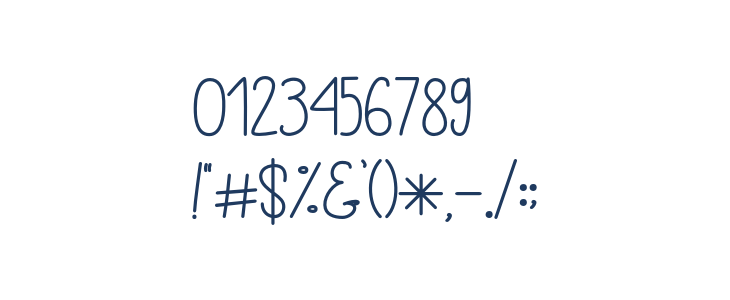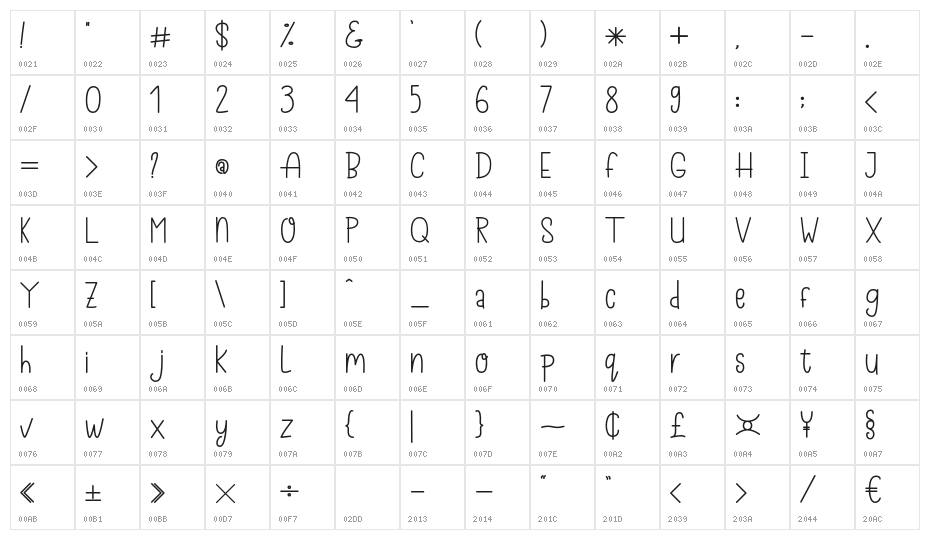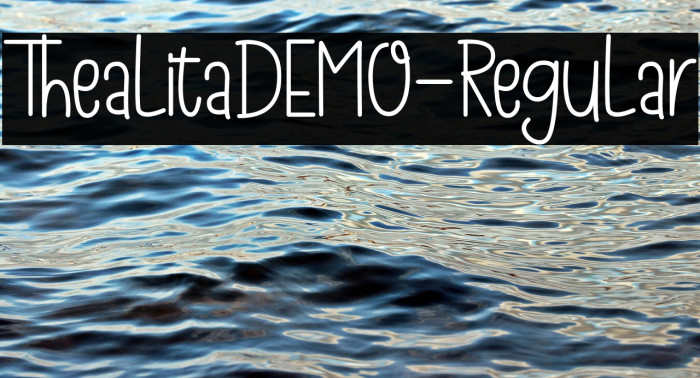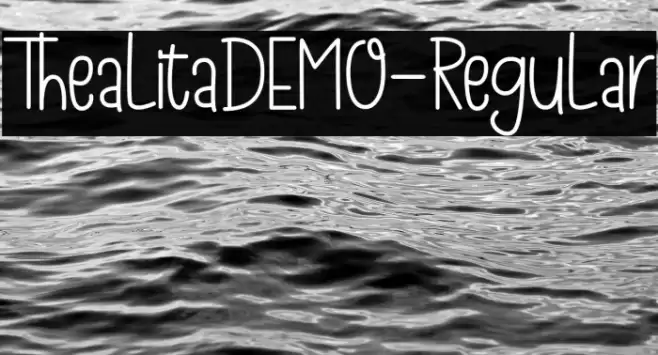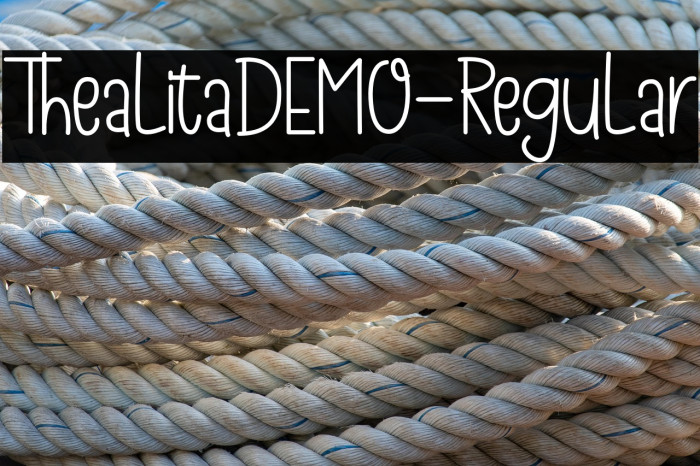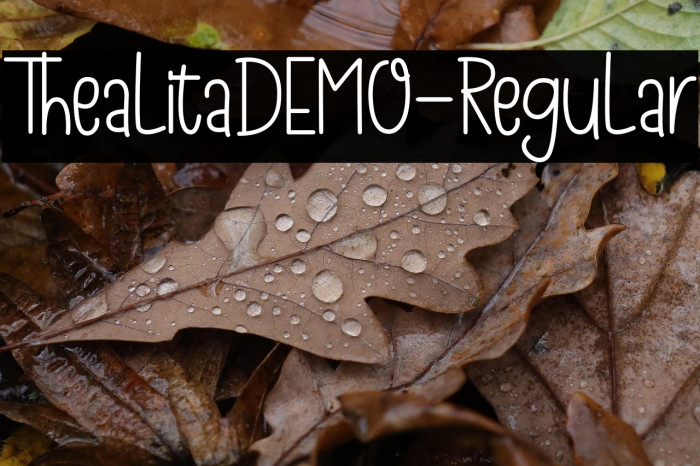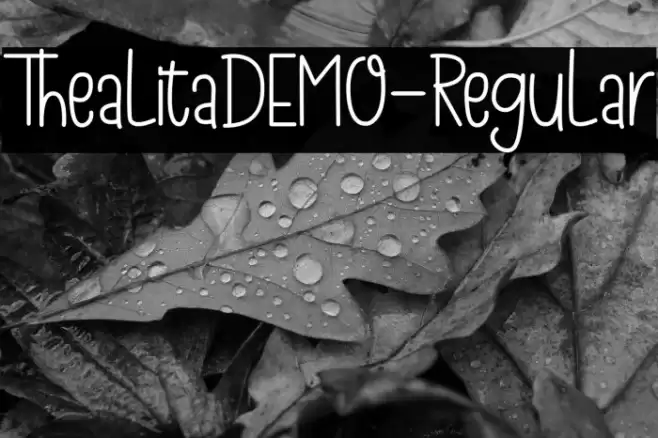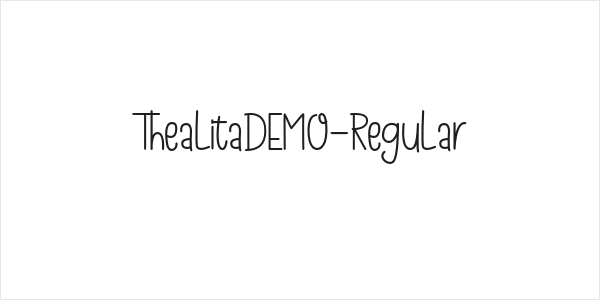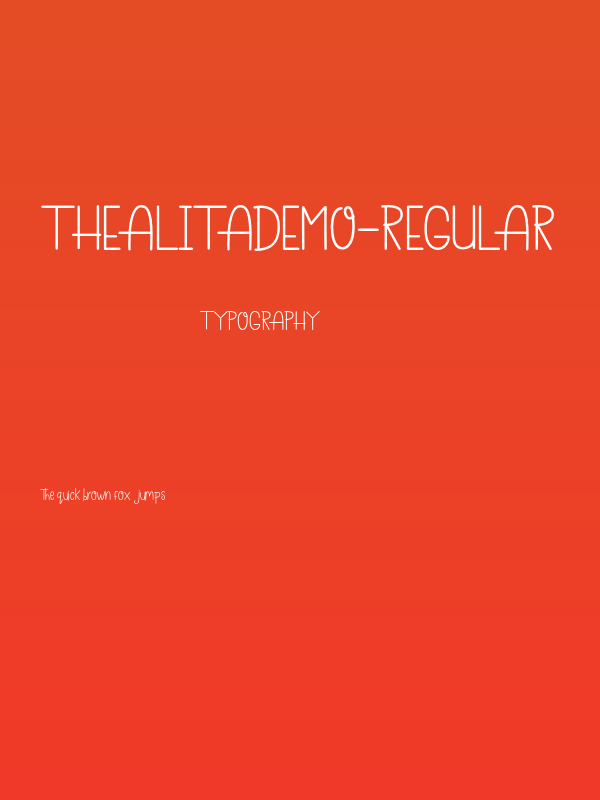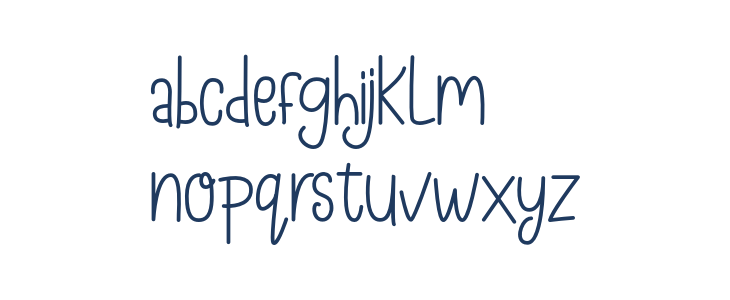
ThealitaDEMO-Regular Font
ThealitaDEMO-Regular Description
This font features a playful and whimsical design, characterized by its tall, narrow letterforms and rounded edges. The uppercase and lowercase letters maintain a consistent style, with a slight slant that adds a sense of movement and energy. The numerals are clear and legible, matching the overall aesthetic of the alphabet. Special characters are included, maintaining the same playful style. The font's unique personality makes it suitable for creative and informal projects.
| Use Case | Logos, Posters, Creative projects |